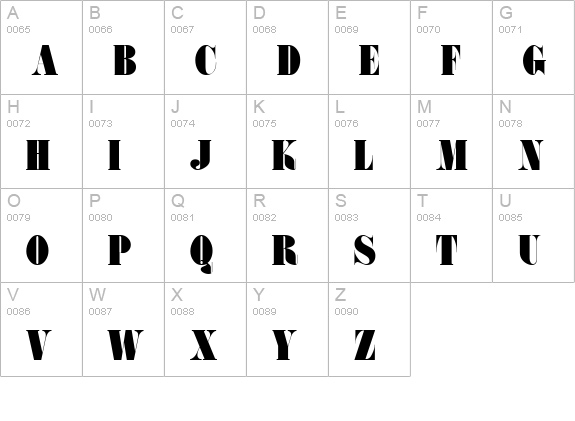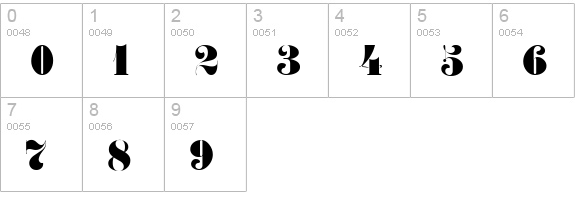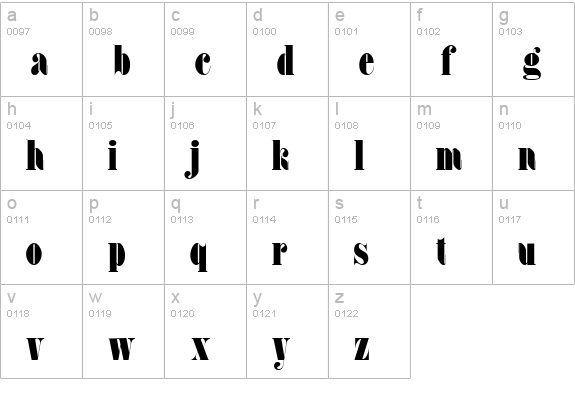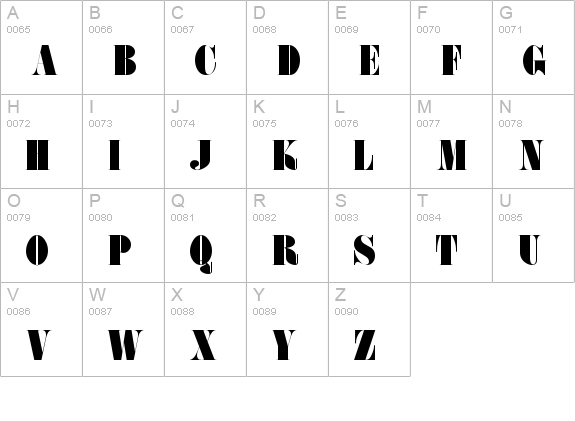
Fat Regular Font Details
Fat Regular is the standard, neutral variant in the Fat typeface family \xE2\x80\x94 well suited to general body text, paragraphs, and standard typographic work.
The Fat Regular font is a bold and eye-catching typeface that commands attention with its thick, weighty letterforms. This font exudes a sense of strength and power, making it an ideal choice for headlines, titles, and other prominent text elements. Its robust design ensures excellent readability even at smaller sizes, making it a versatile option for a variety of design projects. Best of all, the Fat Regular font is completely free to download at FontsMarket.com, allowing you to easily add this impactful typeface to your collection without any cost. Whether you're creating posters, logos, or social media graphics, the Fat Regular font is sure to make a bold statement and elevate your designs to the next level. Download it today and unleash the power of this striking font in your projects.